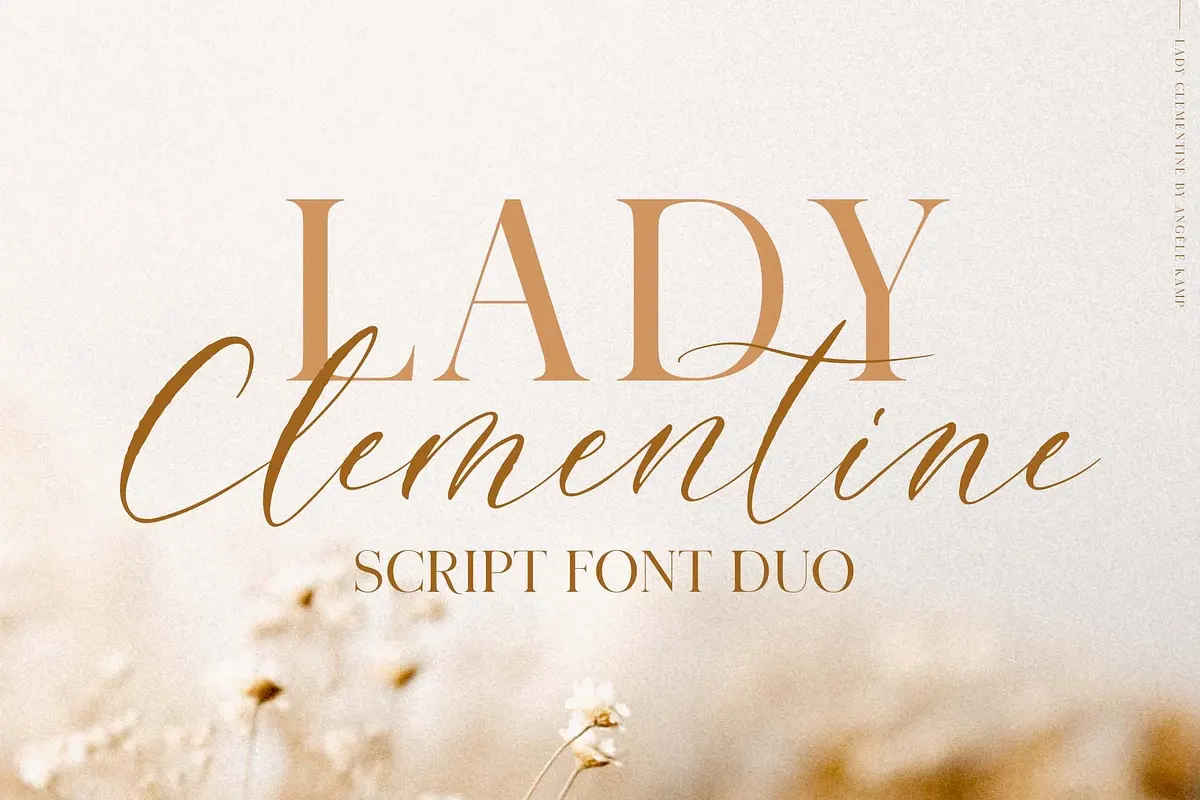
Lady Clementine Script Font & Serif Free Download is an elegant and versatile font duo that combines the fluid beauty of a script font with the timeless appeal of a serif font. The script font adds a refined, handwritten touch, perfect for invitations, logos, and branding, while the serif font offers a sophisticated, structured complement, ideal for professional designs, editorial layouts, and websites. Whether you're working on a wedding invitation, a luxury brand, or a creative campaign, Lady Clementine Script Font & Serif Free Download gives you the flexibility to explore both fonts in personal projects before purchasing a commercial license. Add charm, elegance, and professionalism to your designs with this beautifully crafted font duo.